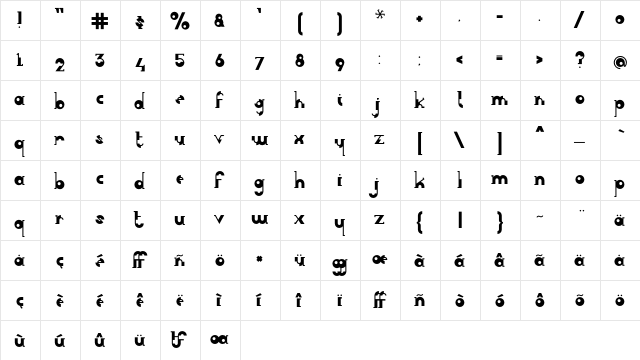
Joker Regular
Design Context for Joker Typeface
Joker is a composed and adaptable typeface that performs quietly and consistently across a wide range of design contexts.
Pro Tip: Pair Joker with a font of contrasting weight or personality to build a more expressive typographic hierarchy.